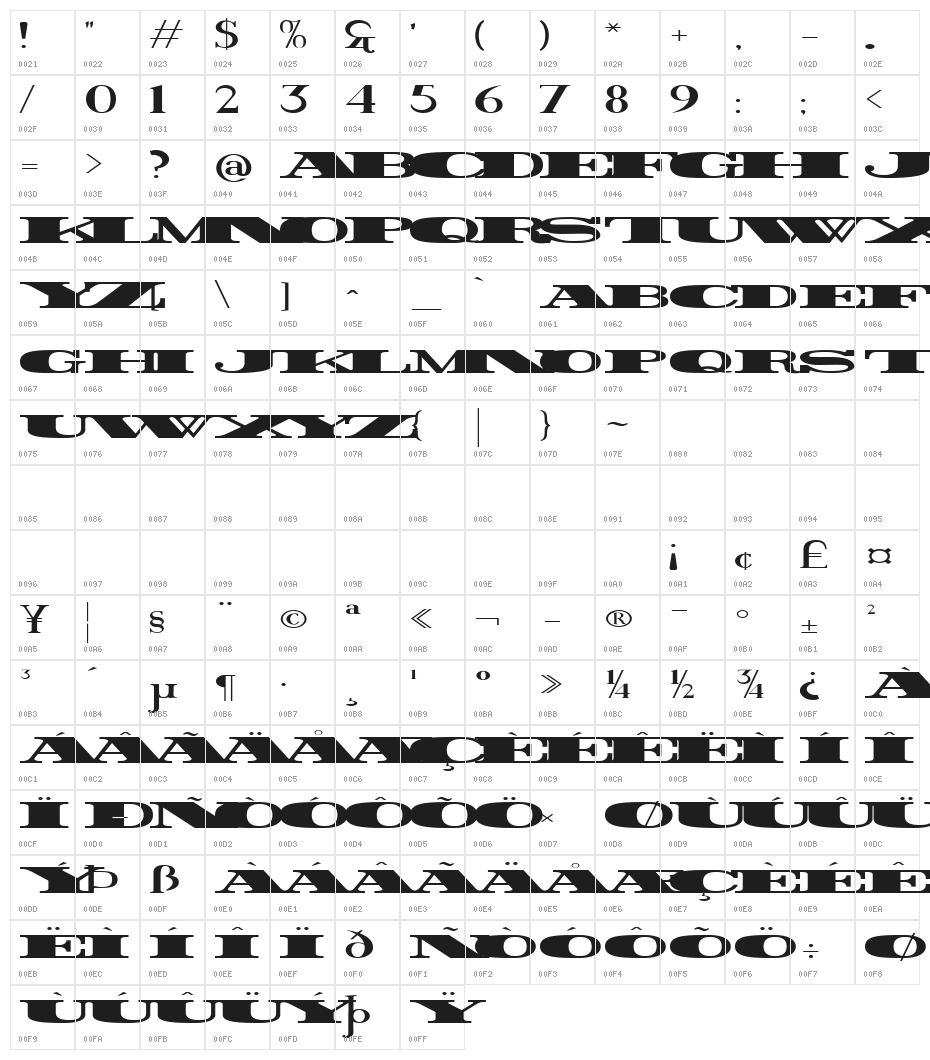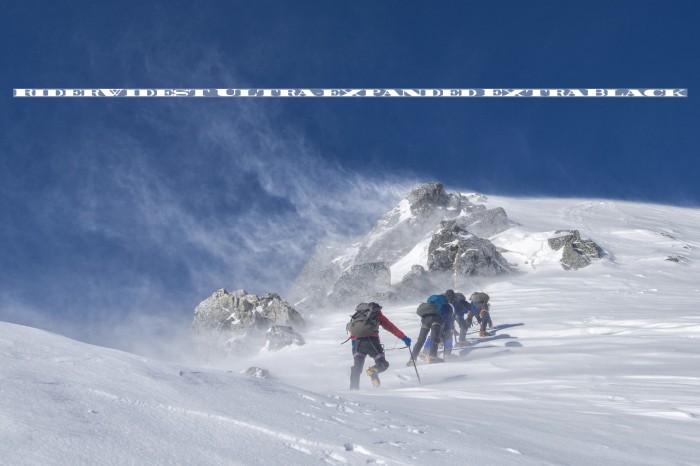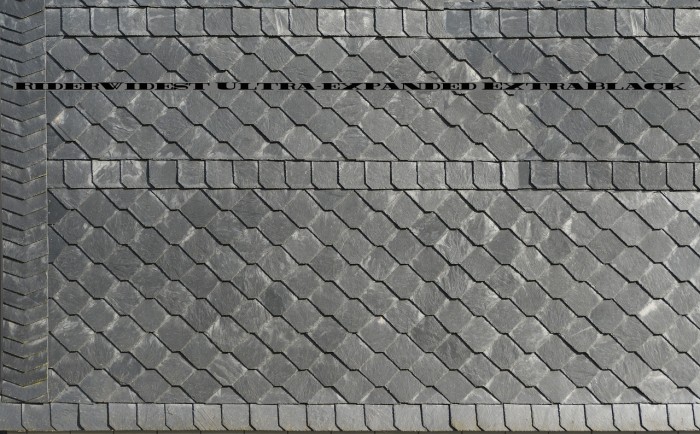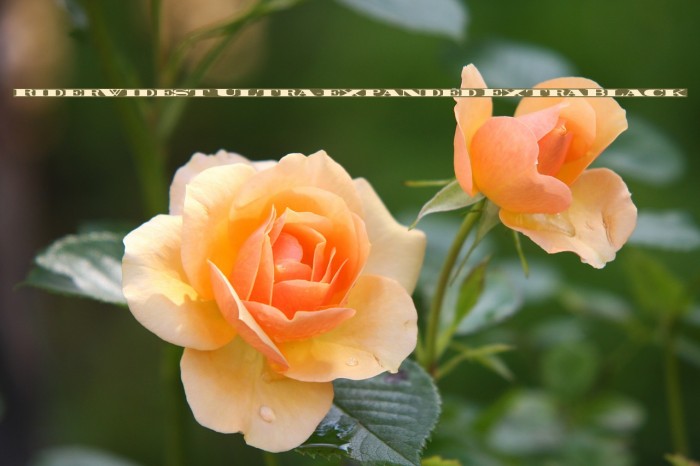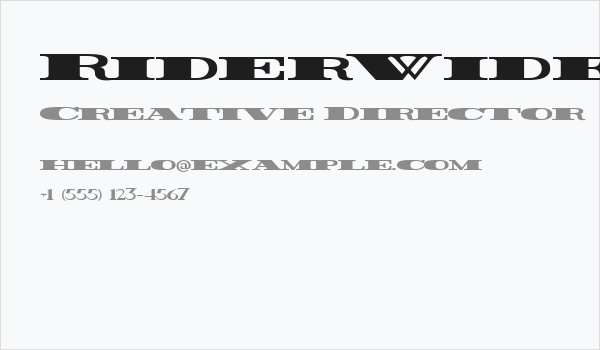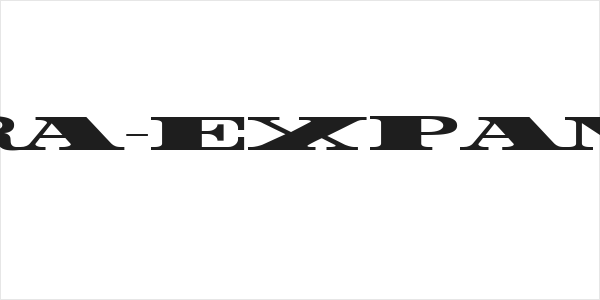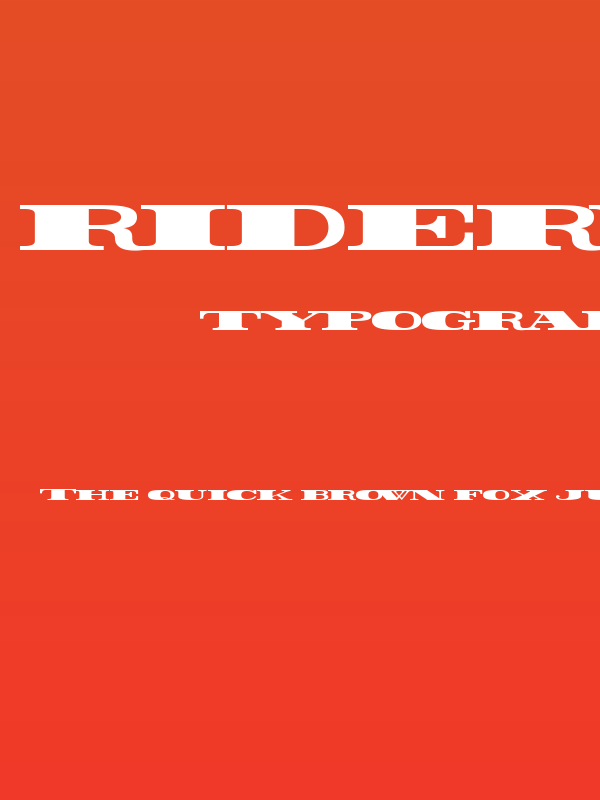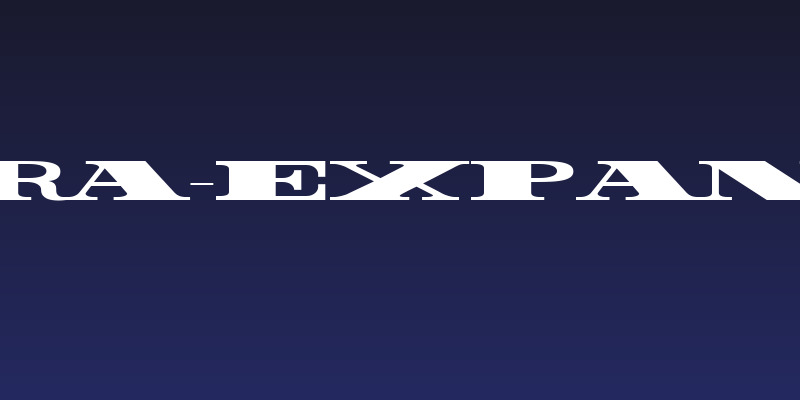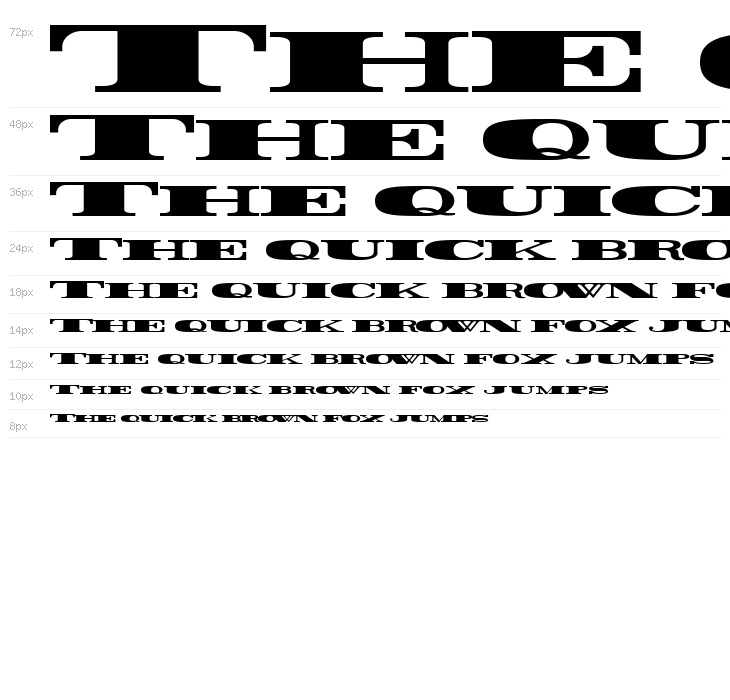
Rider Widest Ultra-expanded ExtraBlack Font
Rider Widest Ultra-expanded ExtraBlack Description
This font features a bold, ultra-expanded style with a strong presence. The uppercase letters are wide and commanding, with thick strokes that convey a sense of strength and stability. The lowercase letters maintain the same boldness, ensuring consistency throughout the typeface. The numerals are equally robust, with a design that complements the overall aesthetic. Special characters are crafted with the same attention to detail, making them stand out while remaining cohesive with the rest of the font. This typeface is ideal for making a bold statement, whether in headlines or logos.
| Proposed Projects | Ideal for branding, headlines, posters, and any project requiring a strong visual impact. |